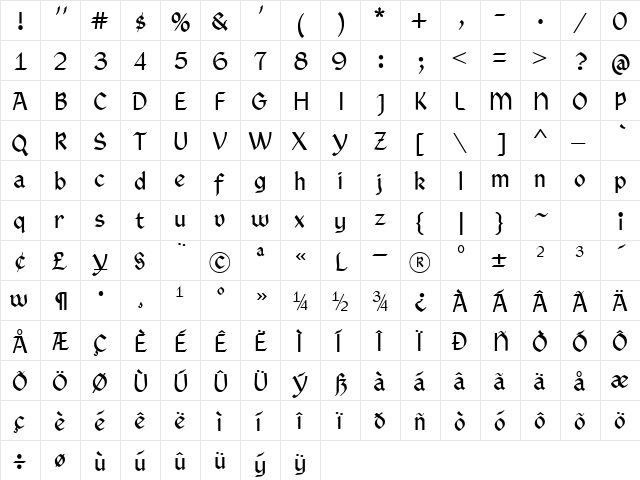
RundigsburgMedium Regular
Design Context for RundigsburgMedium Typeface
RundigsburgMedium is a composed and adaptable typeface that performs quietly and consistently across a wide range of design contexts.